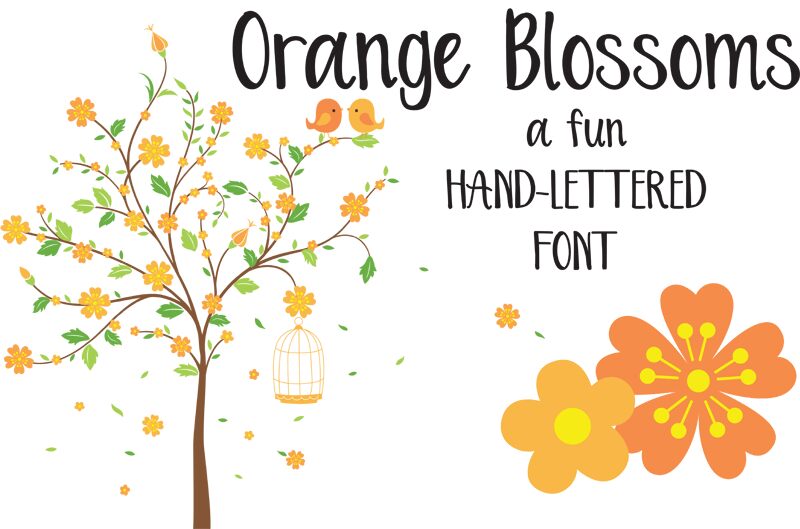
OrangeBlossoms
Orange Blossoms is a delightfully whimsical, handwritten font designed by Dez C. With its condensed width and playful, organic strokes, this font exudes a sense of warmth and charm. The irregular, yet graceful letter shapes evoke the natural flow of handwriting, adding a touch of authenticity and personality to any design.
This font's versatility shines through, making it a versatile choice for a wide range of applications. From rustic wedding invitations to playful branding materials, Orange Blossoms effortlessly captures the essence of handcrafted, artisanal aesthetics. Its distinctive character and legibility ensure that it can be utilized in both large and small-scale projects, ensuring a cohesive and visually captivating outcome.